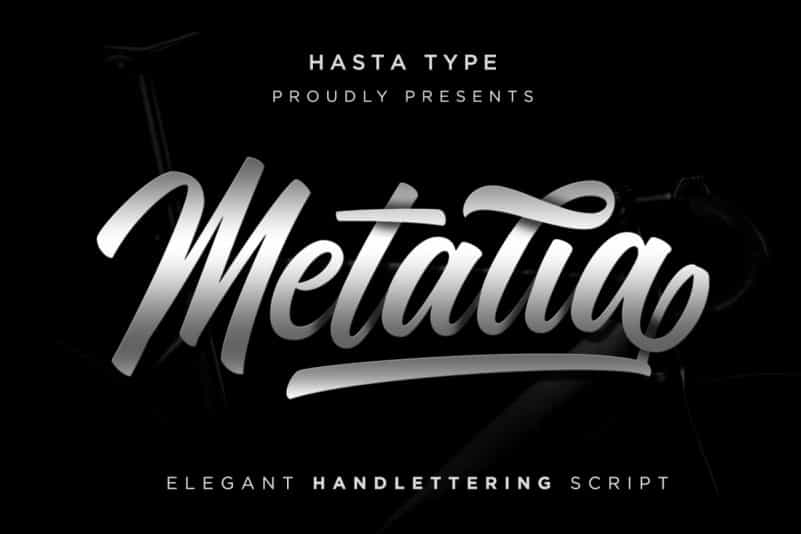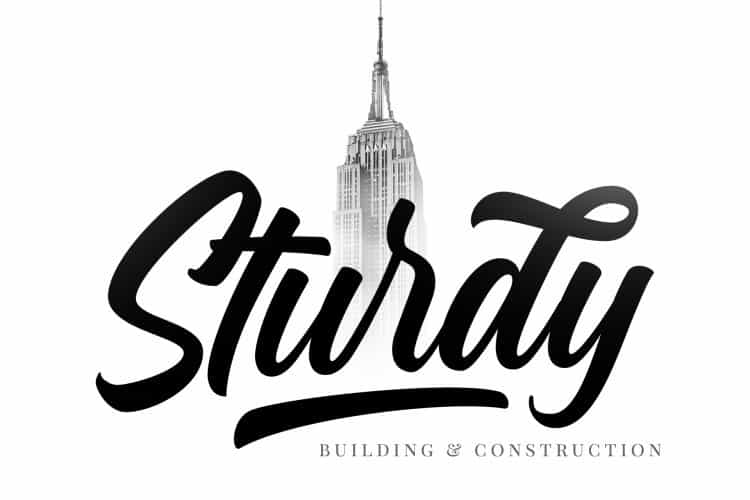
Discover Metalia Script Font, part of the Brush Calligraphy collection—a versatile and unique font perfect for adding a personal touch to your projects. Download it for free and enjoy crafting designs with style, from invitations to social media posts. This font is available exclusively for personal use, giving you the freedom to create without limits. Unlock your creativity with Metalia Script Font today!
Introducing Metalia Font. This icon is created and posted by IklazStudio. Metalia Script is a font type that is elegant and classy. It has so many counterparts with handlettering style. This font should look more classy, sophisticated, legible, stylish, attention grabbing and comfortable. Metalia can be used for Logotype, quotes, album cover, business card, t-shirt design and many other things.